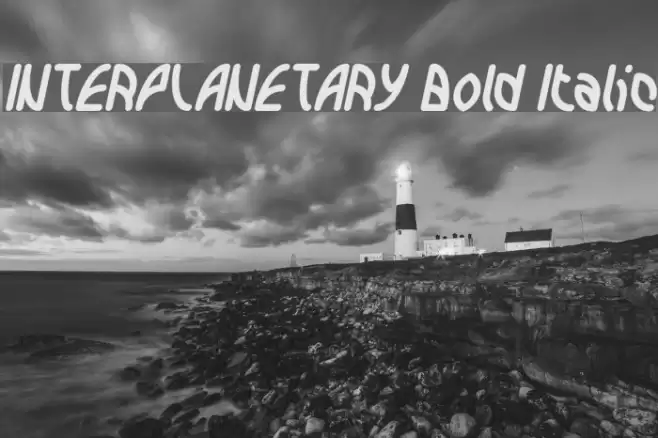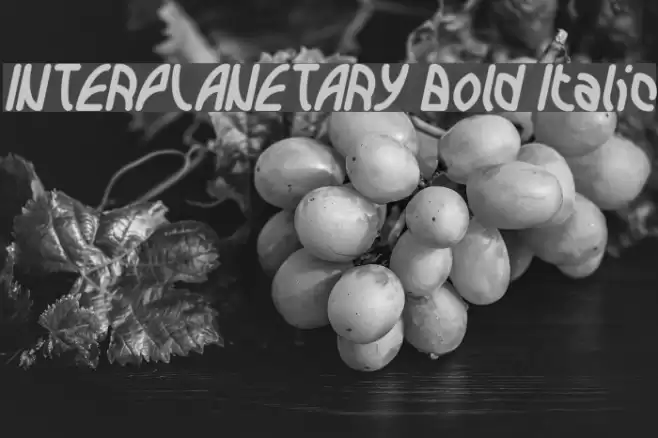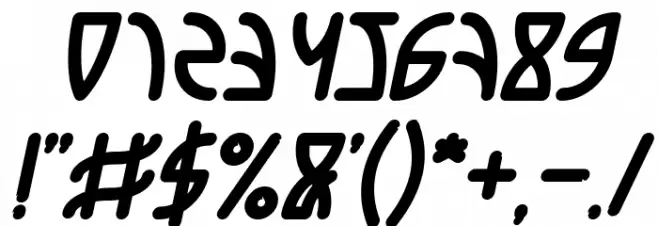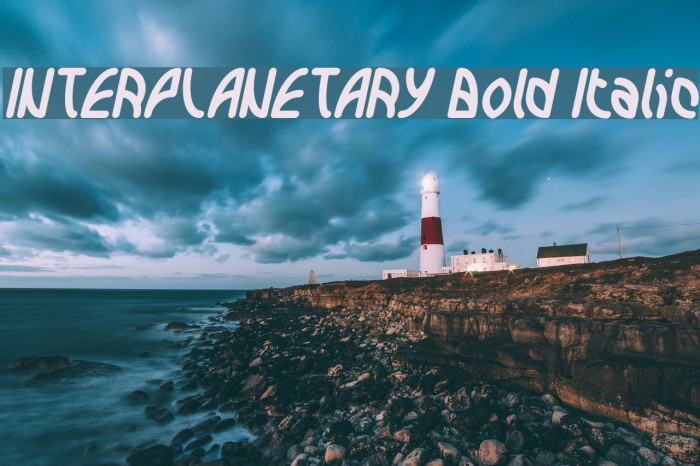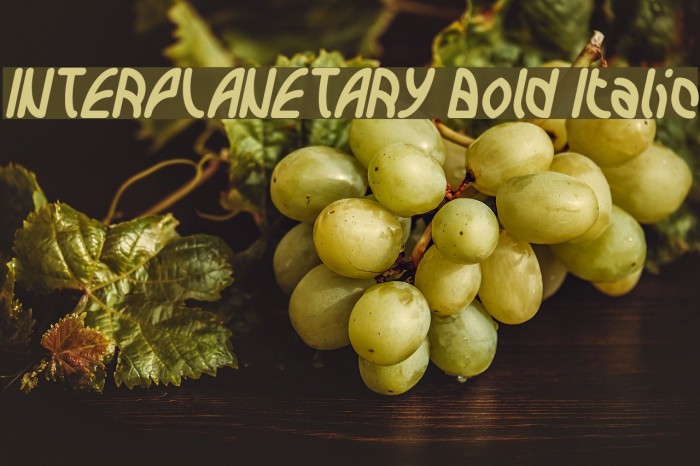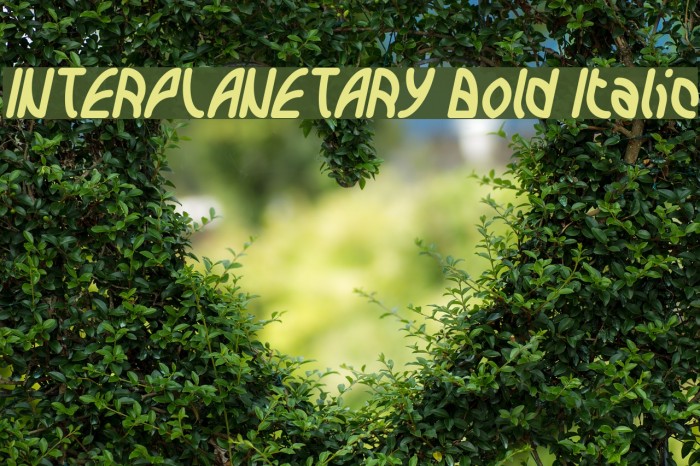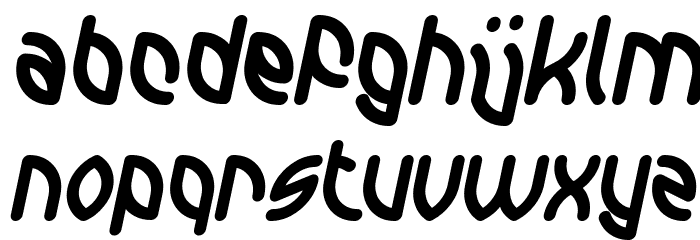
INTERPLANETARY Bold Italic Font
INTERPLANETARY Bold Italic Description
This font features a bold and italic style with a futuristic and playful design. The characters are rounded and slightly slanted, giving them a dynamic and energetic appearance. The uppercase and lowercase letters maintain a consistent style, with smooth curves and a uniform thickness throughout. The numbers and special characters are designed to match the overall aesthetic, ensuring a cohesive look. The font's unique style makes it stand out, with a modern twist that is both eye-catching and versatile.
A bold, italic, and futuristic font with rounded, slanted characters from Uncategorized fonts.
- Proposed Projects: Ideal for sci-fi themed projects, modern branding, posters, and digital media.